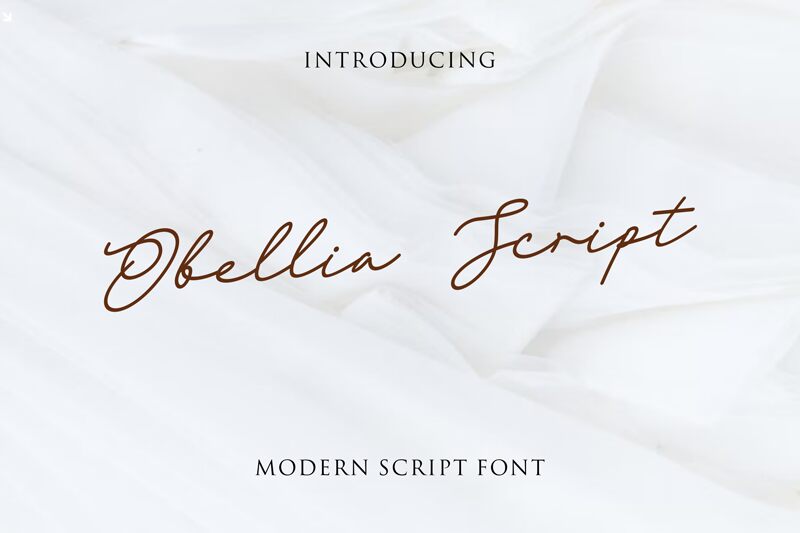
Obellia Script, designed by Ari Wibowo, is a modern script font that exudes elegance and sophistication. With its light weight, this font is perfect for projects that require a delicate touch while maintaining a contemporary edge.
Its flowing lines and graceful curves make it ideal for wedding invitations, feminine branding materials, and fashion editorials. Obellia Script adds a touch of refinement to any project, whether it's creating luxurious logos or designing elegant packaging.